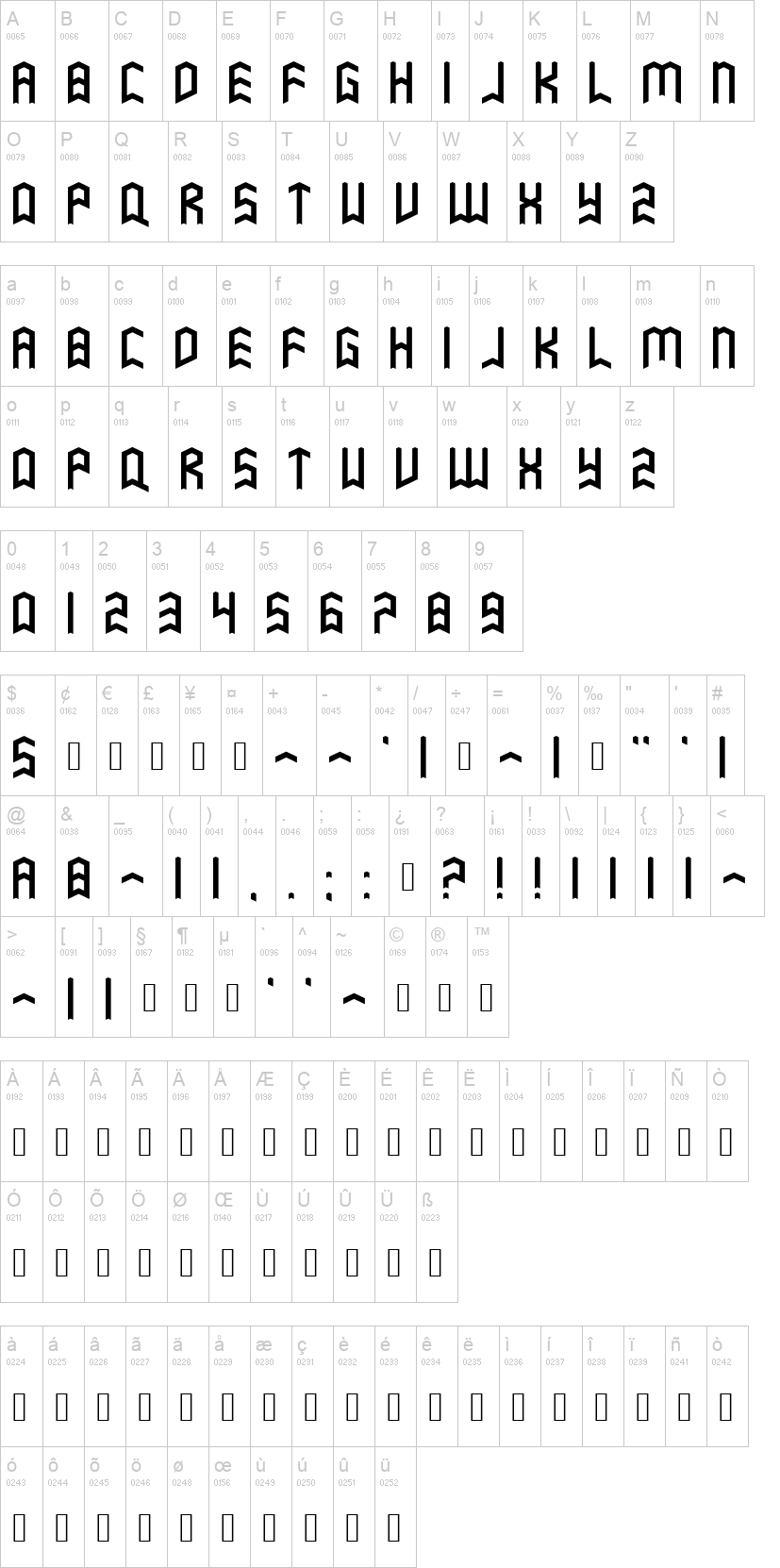
Note of the authorThe font Vympel contains only capital letters, so it would suit your headings or even could be used for the sports jerseys! It contains English and Ukrainian letters.